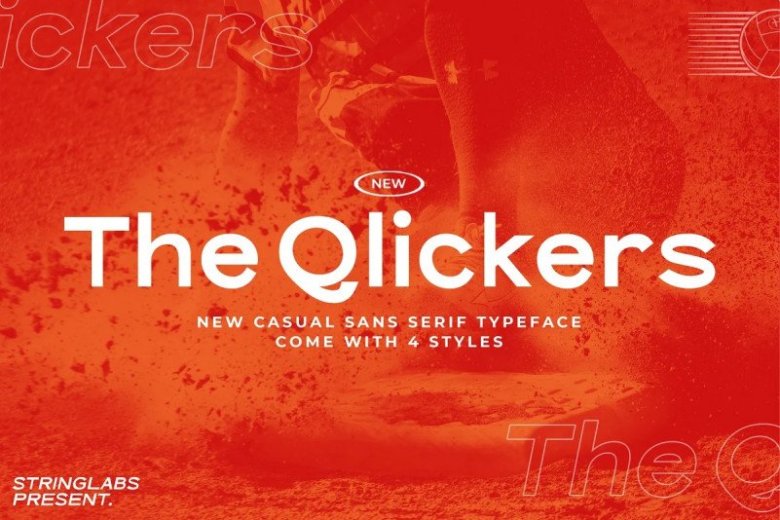
The Qlickers Sans Serif Font is a humanist sans serif in two styles and 4 weights. It’s designed and shared by StringLabs. This beautiful and professional typeface is suitable for film posters, headlines, block letters, subheadings, logo designs, and so much more.